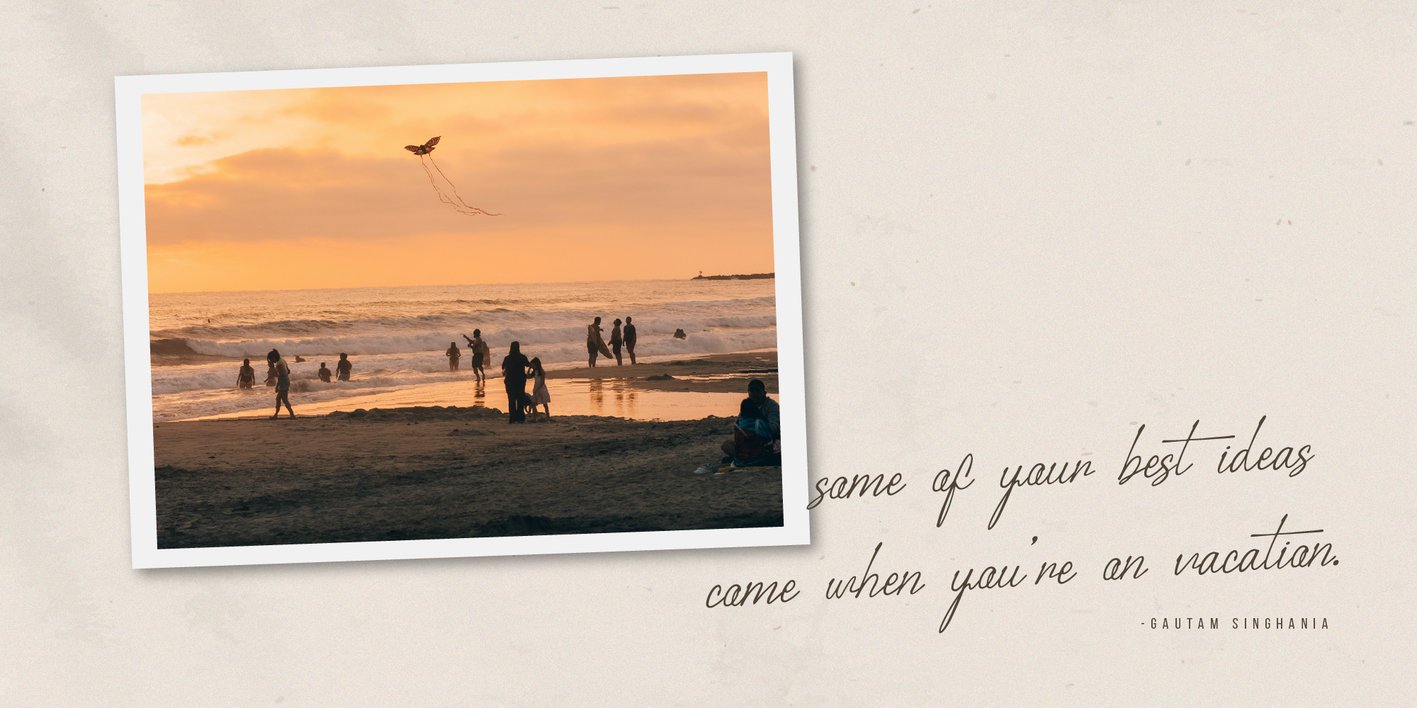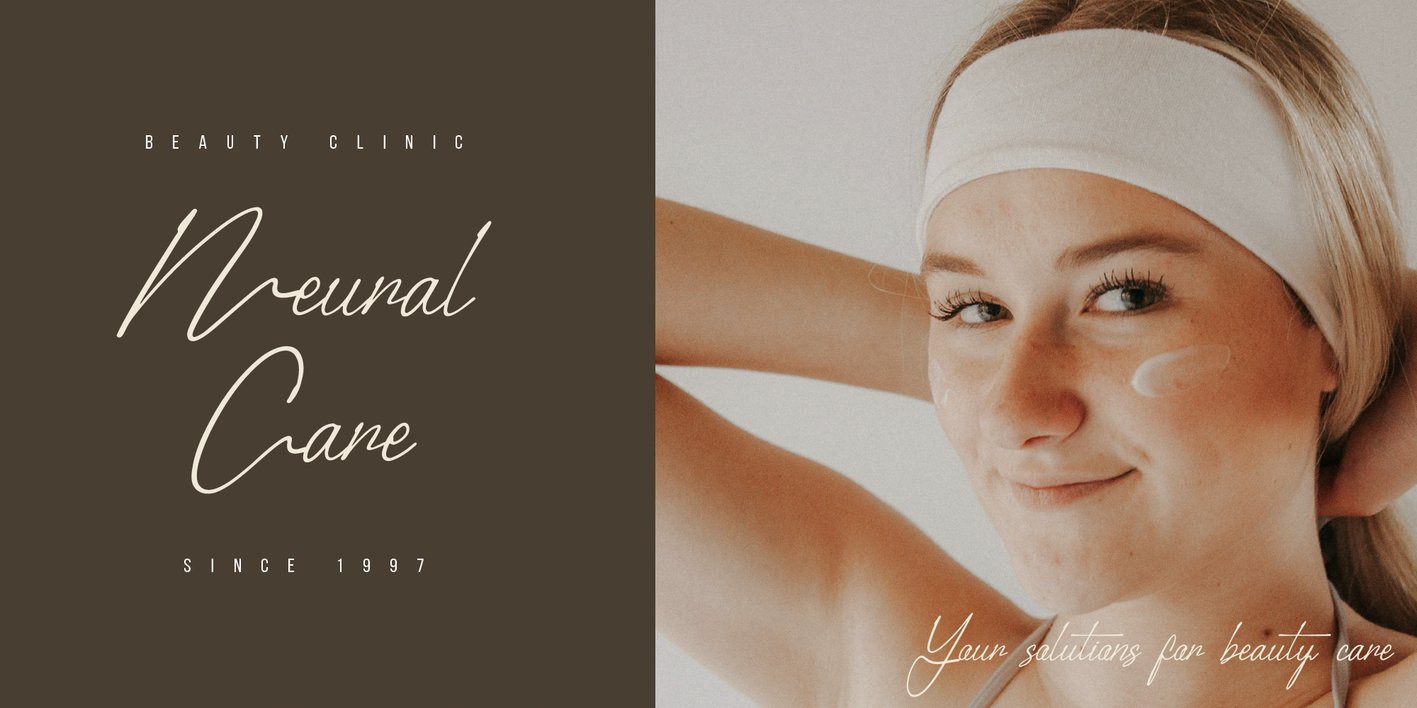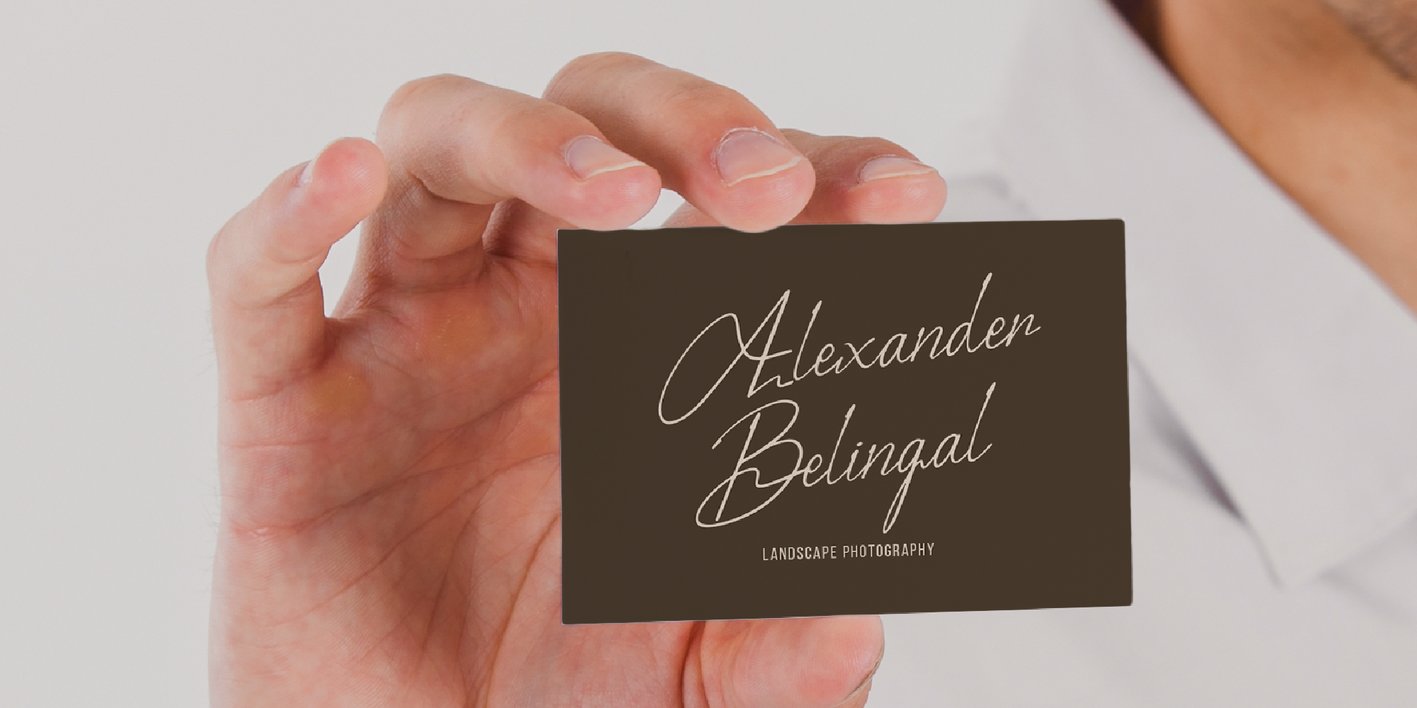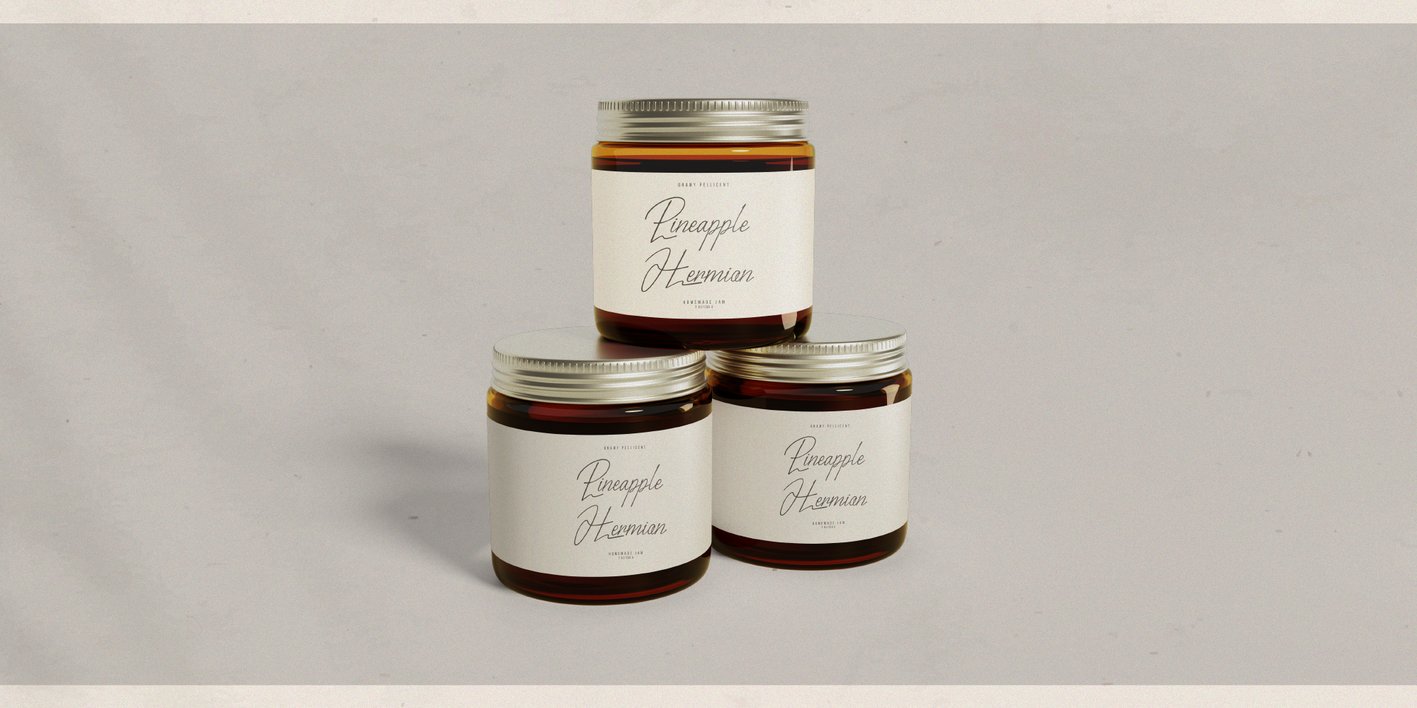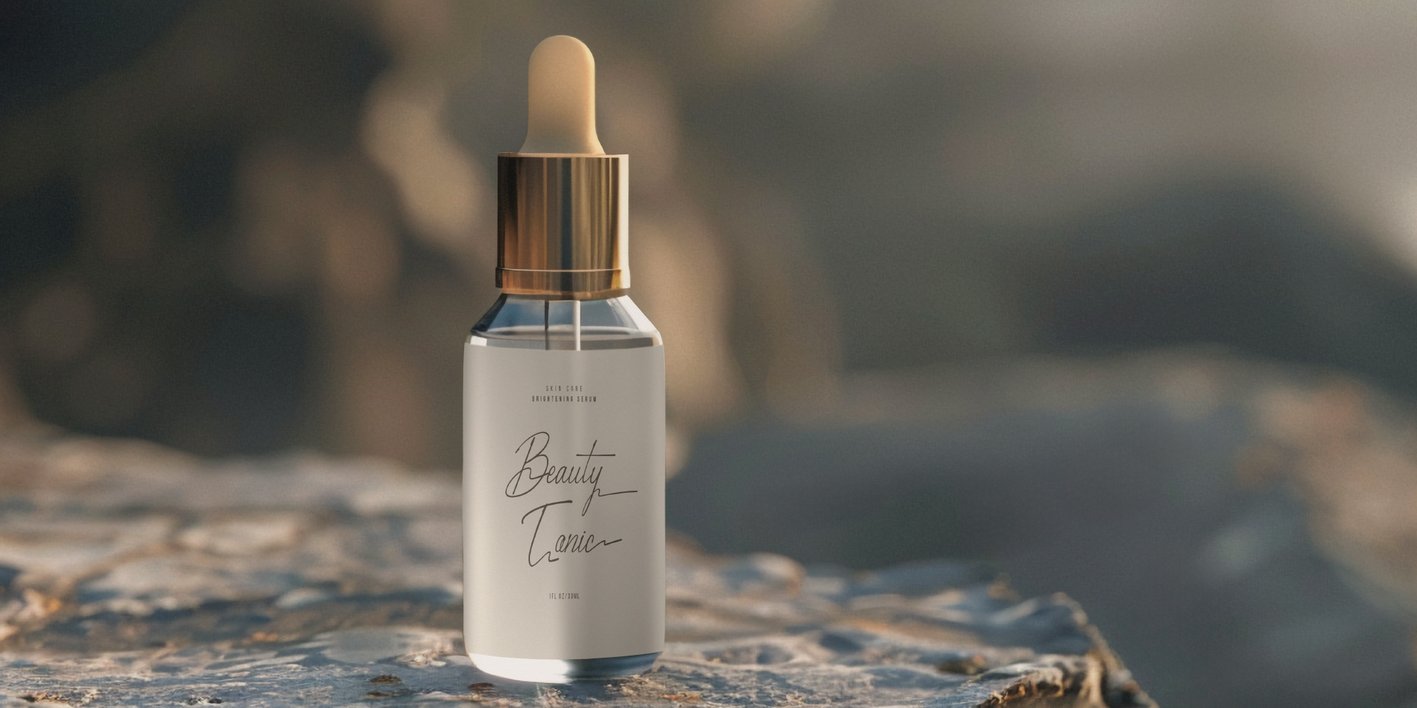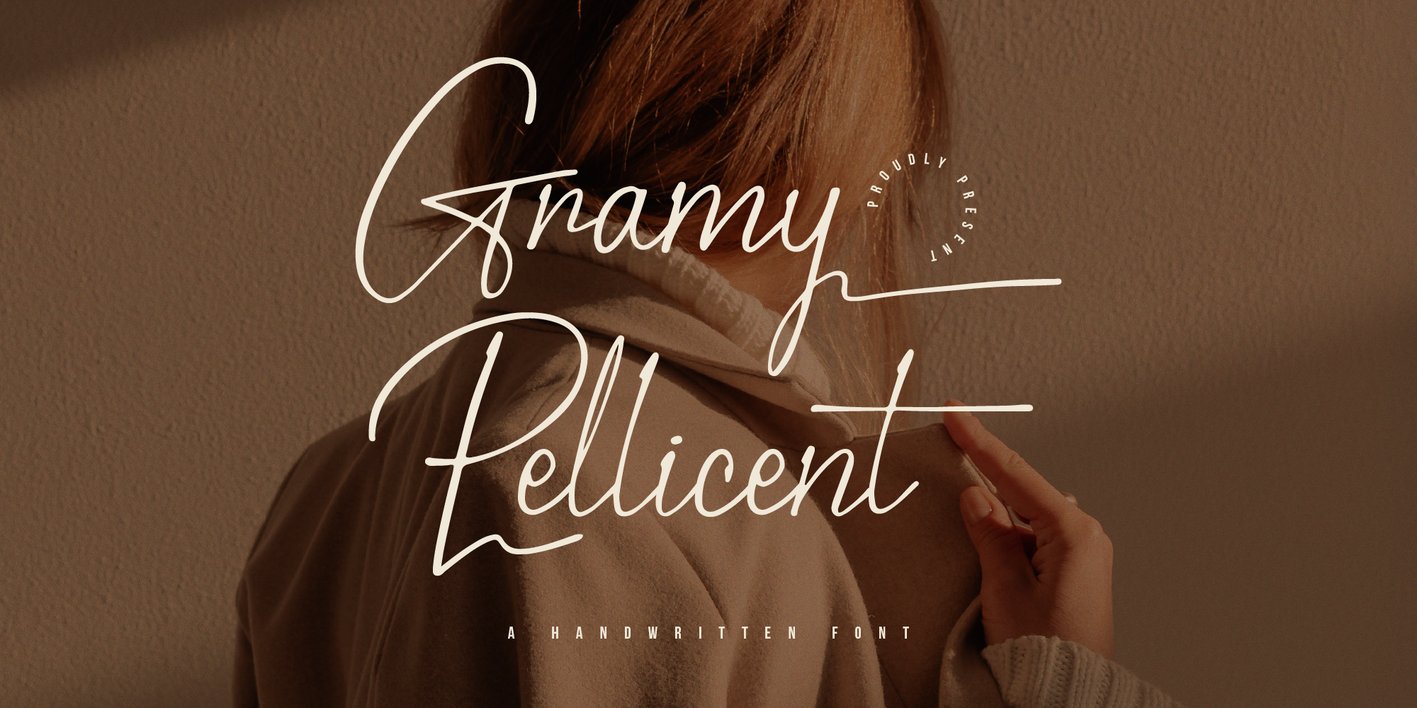
Gramy Pellicent Font
Gramy Pellicent | Handwritten Font, from Gracetypestudio, suitable for any projects such as: logos, branding projects, homeware designs, product packaging, mugs, quotes, posters, shopping bags, t-shirts, book covers, name card, invitation cards, greeting cards, label, photography, watermark, special events, and all your other lovely projects that need a Handwritten script taste.